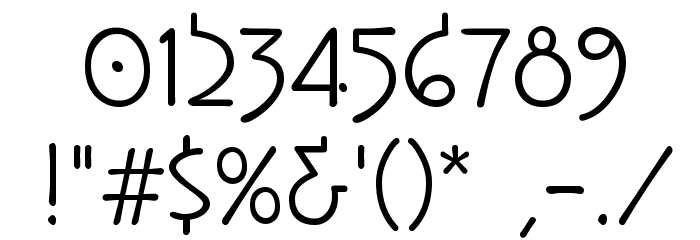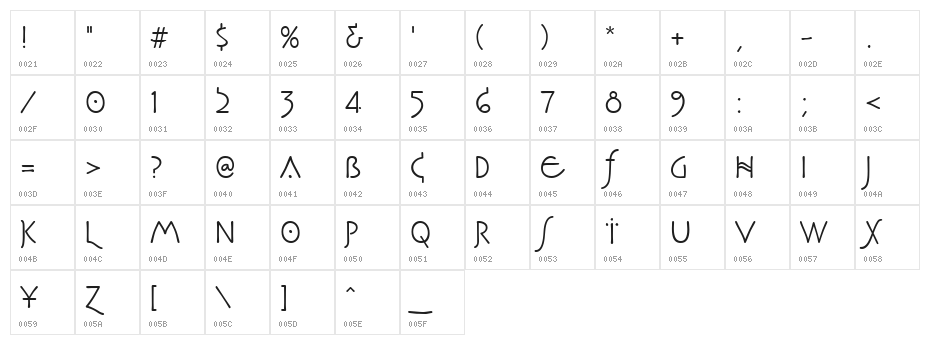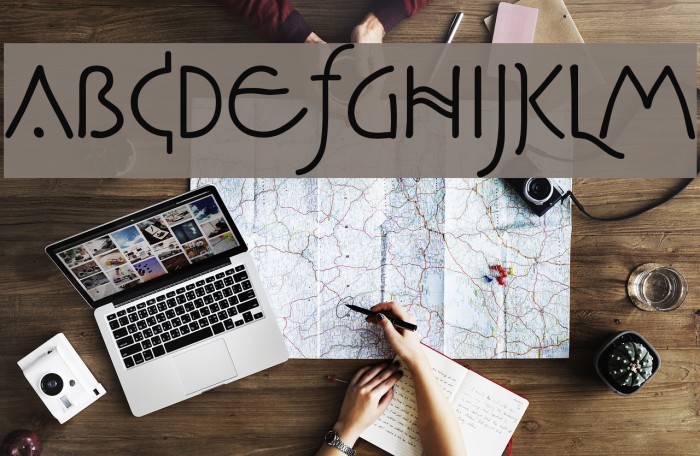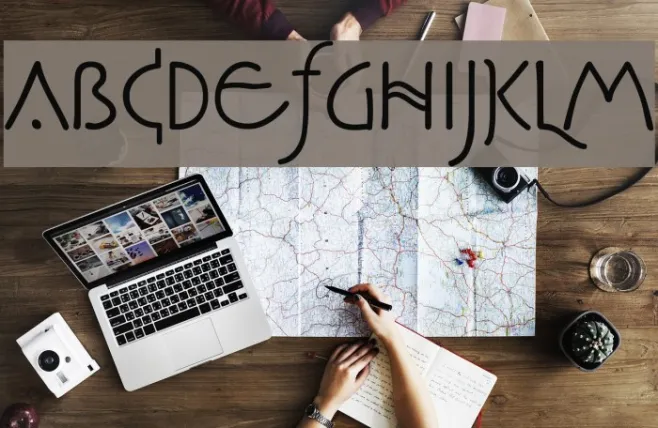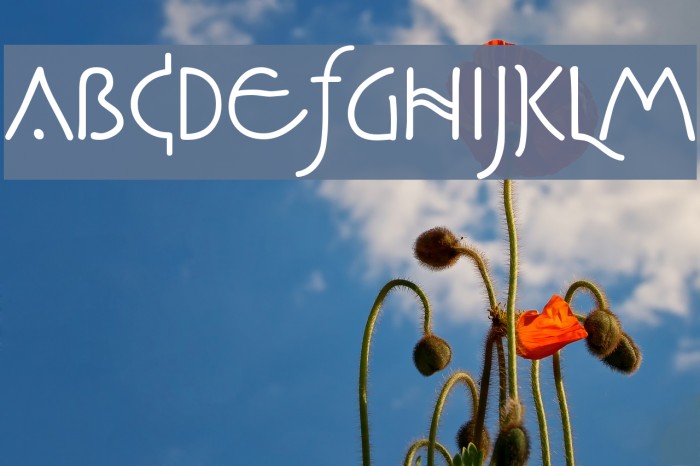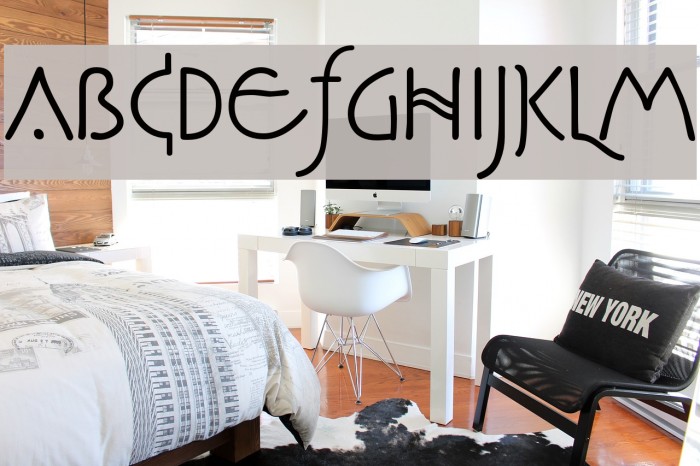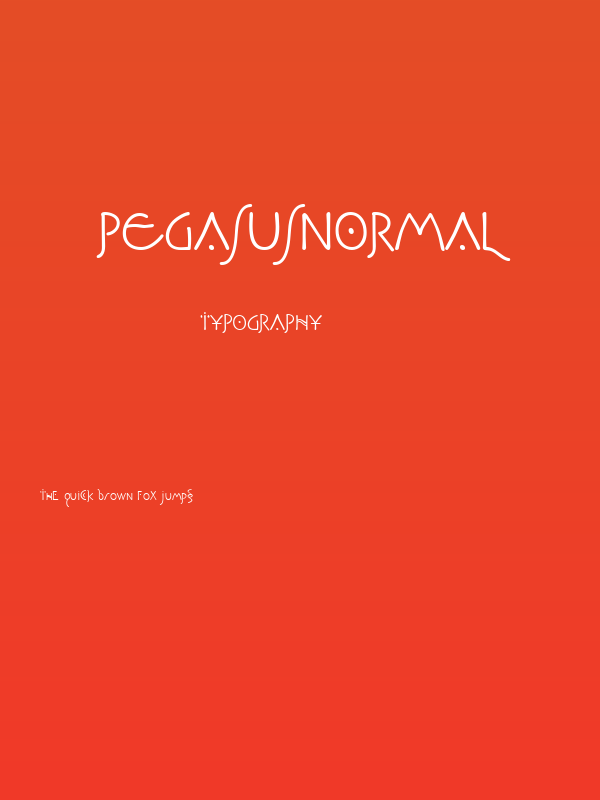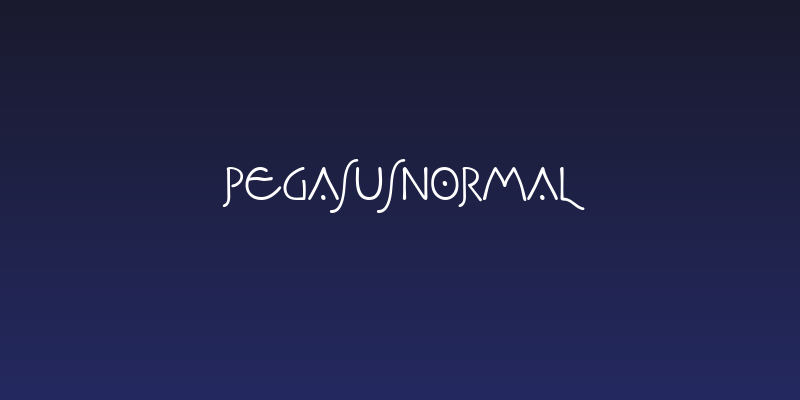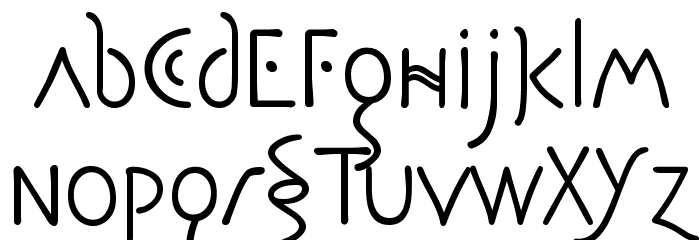
PegasusNormal Font
PegasusNormal Description
This font features a unique and artistic design with a whimsical and playful character. The letters are crafted with a combination of curves and straight lines, creating a sense of movement and fluidity. The uppercase letters have a distinct style with some characters incorporating unusual shapes and angles, while the lowercase letters maintain a consistent flow. The numerals are equally stylized, matching the overall aesthetic of the font. Special characters are creatively designed, adding to the font's decorative appeal. This font is ideal for projects that require a touch of creativity and individuality.
| Use Case | Logos, Posters, Creative projects |
| Proposed Projects | Ideal for creative projects such as children's books, artistic posters, and unique branding materials. |